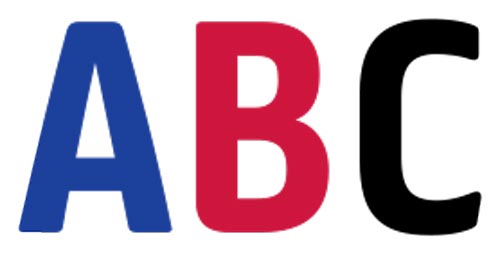
New Football League Shirt Font and Sleeve Patches Revealed
In line with its new visual identity, the English Football League introduced a new font for player names and numbers, as well as redesigned sleeve patches for the upcoming season.
2016-2017 Football League Font
A more modern approach, the new Football League name and numbers font comes without an outline, unlike its predecessor and the font used in the Premier League. The EFL logo is present at the bottom of the numbers, while Prostate Cancer UK logo remains at the top. In line with the new English Football League branding, a line of dots runs through the numbers.